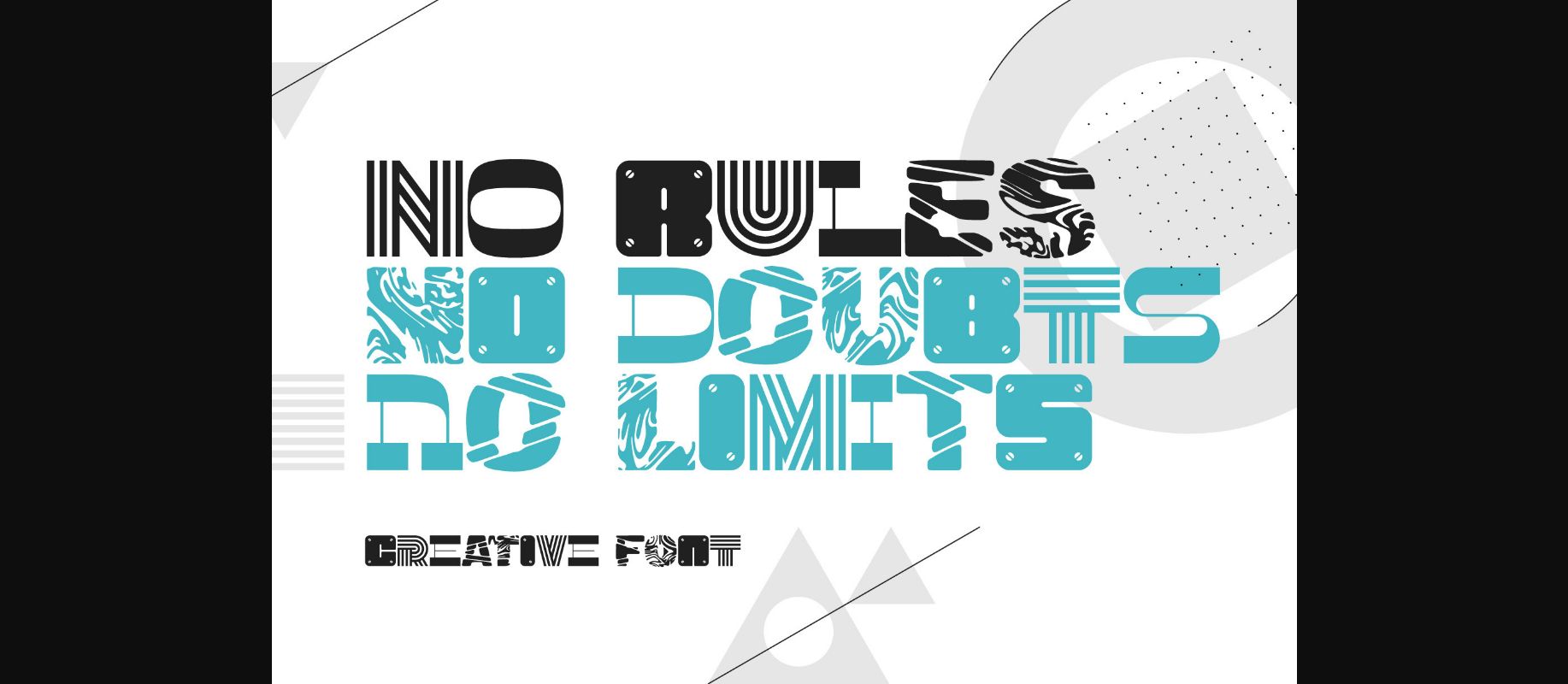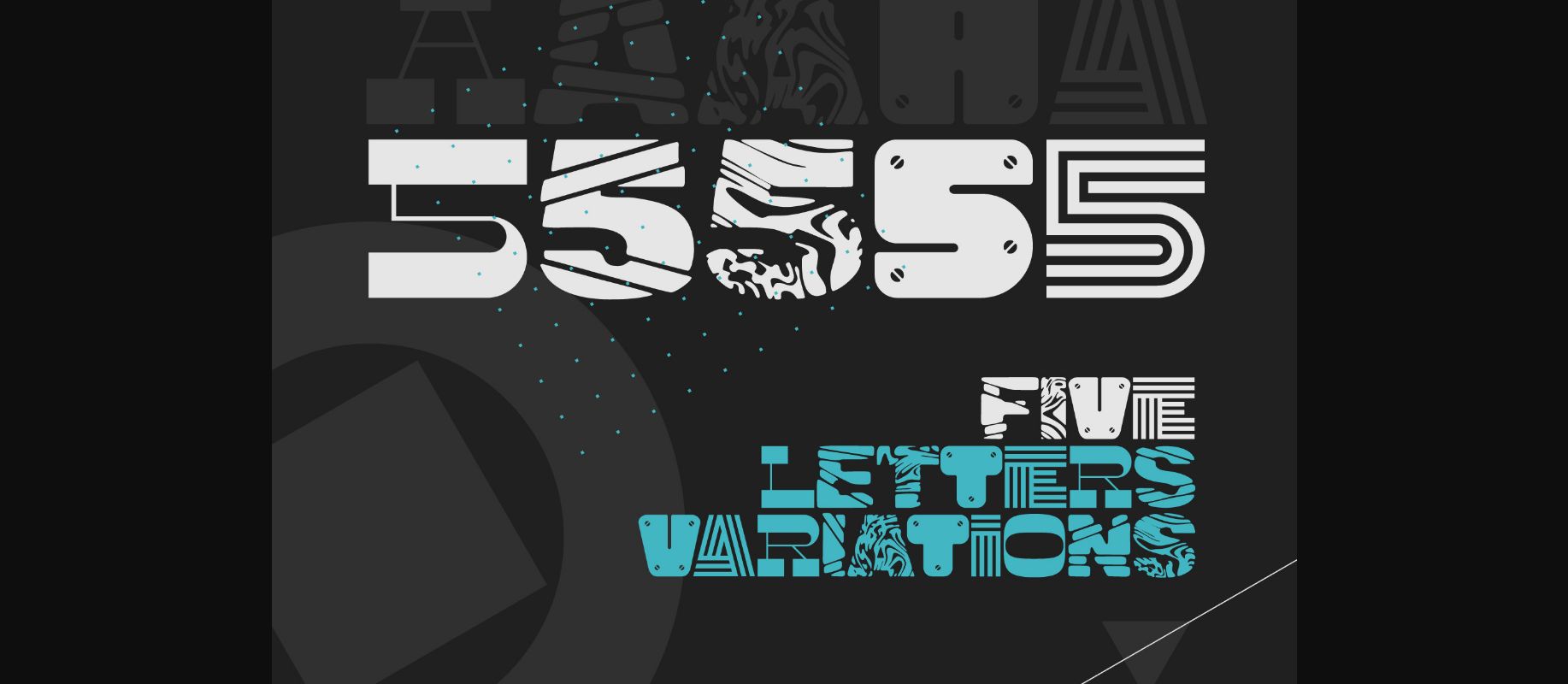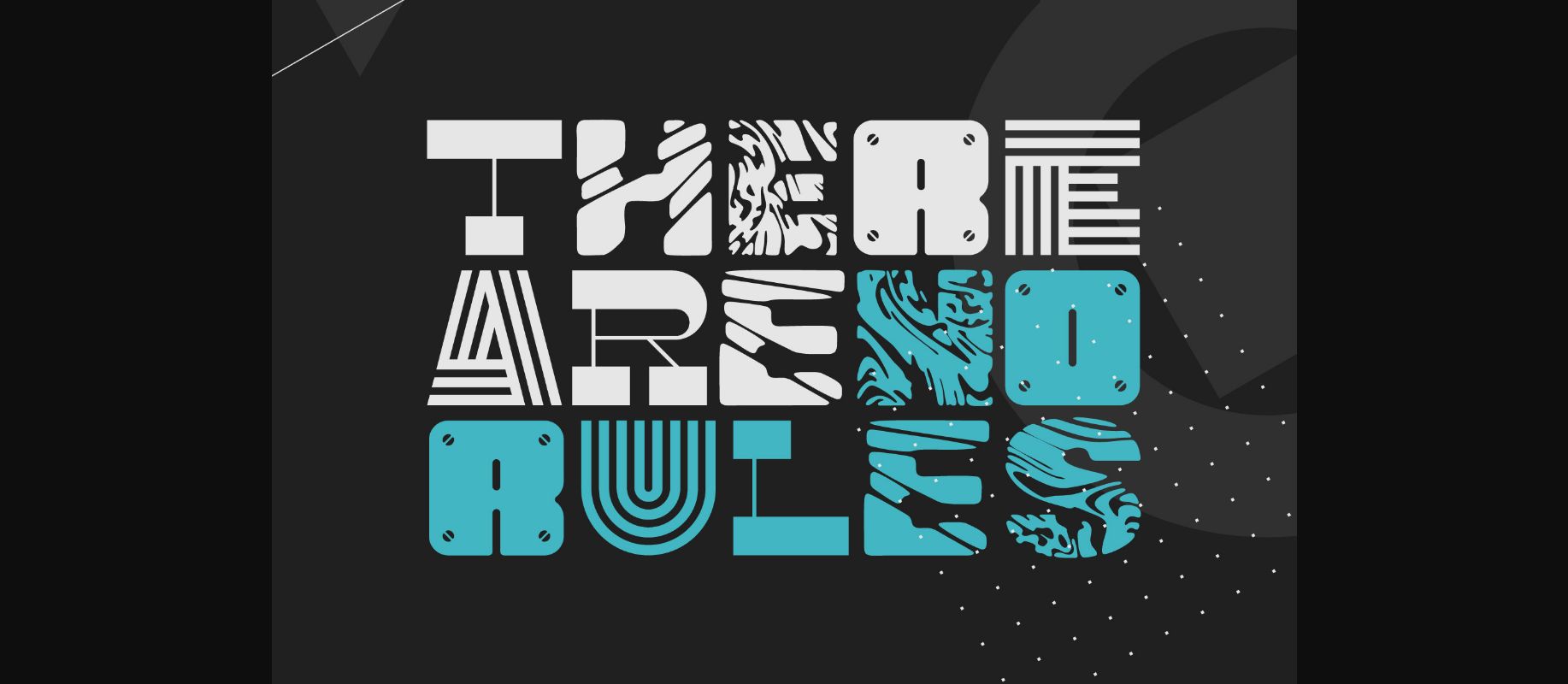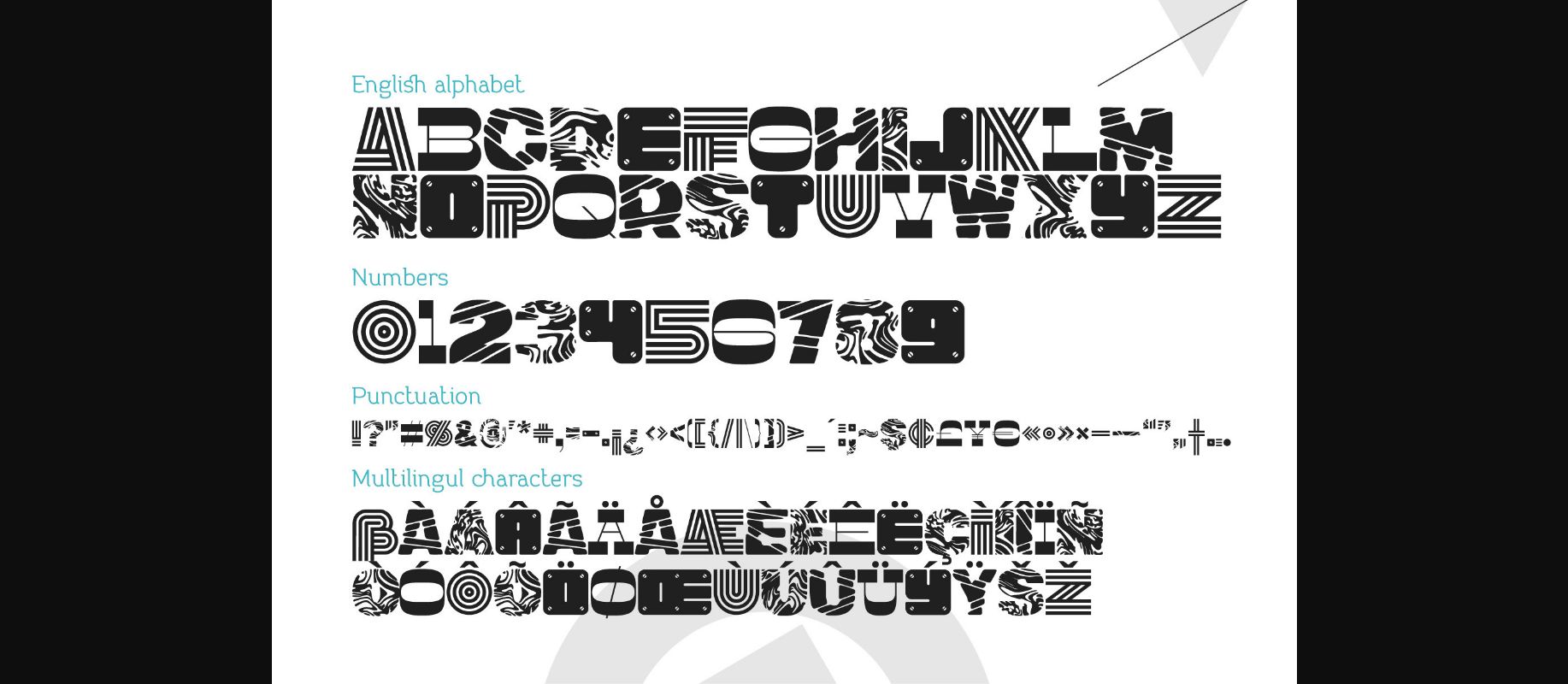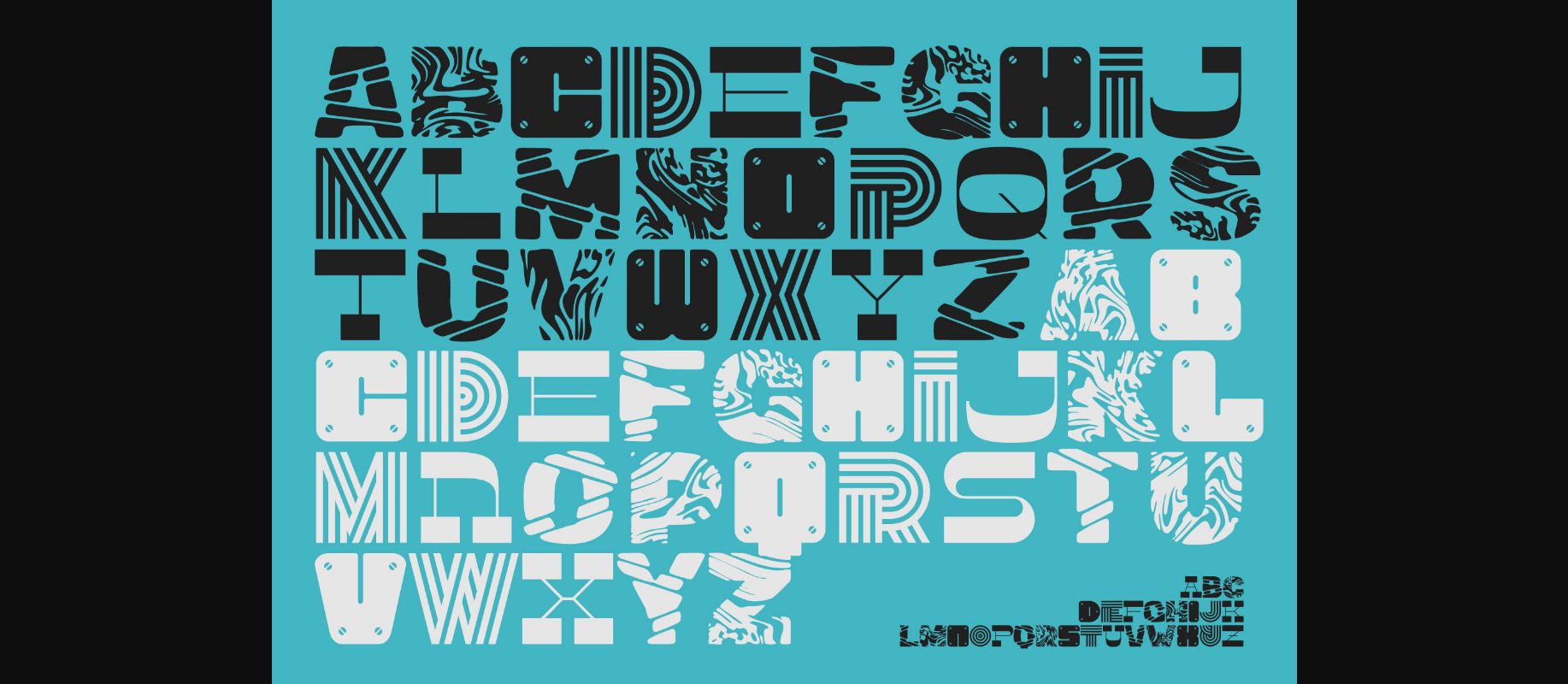
No Rules is a creative, bold and jungle-like decorative font. No matter the topic, this font will be an incredibly asset to your fonts’ library, as it has the potential to elevate any creation.